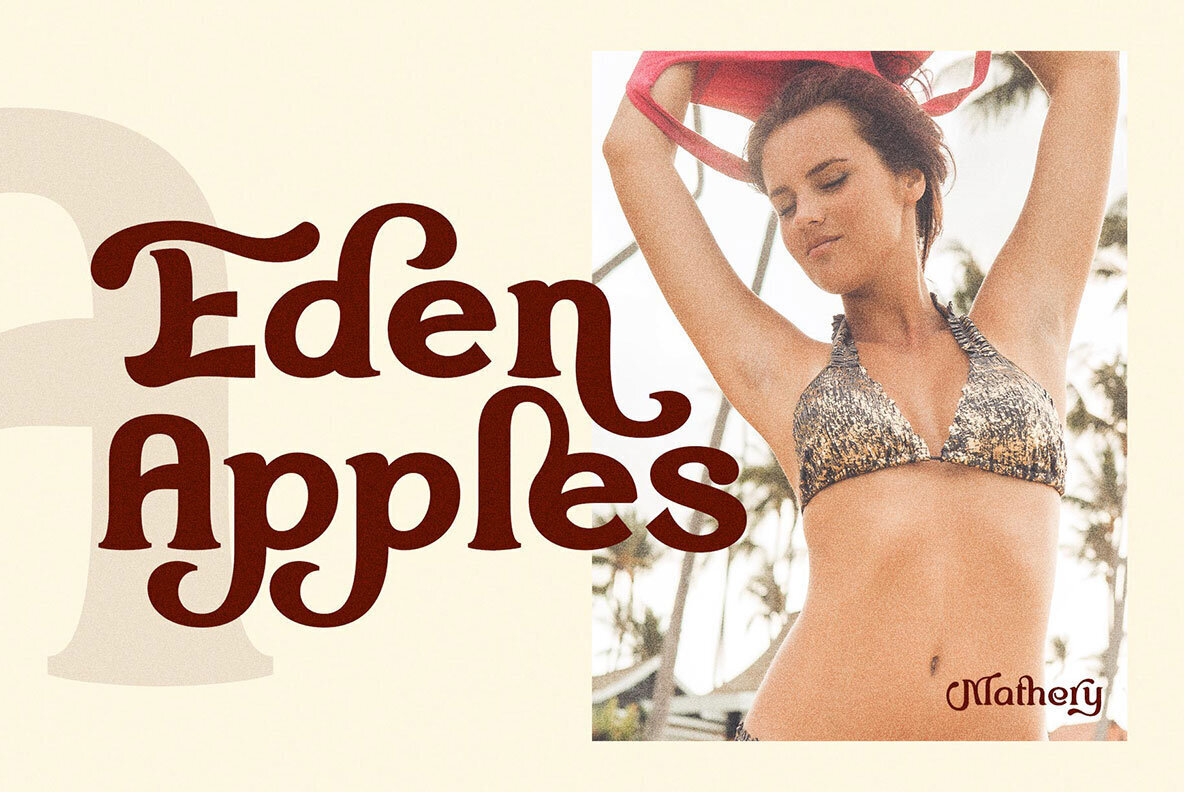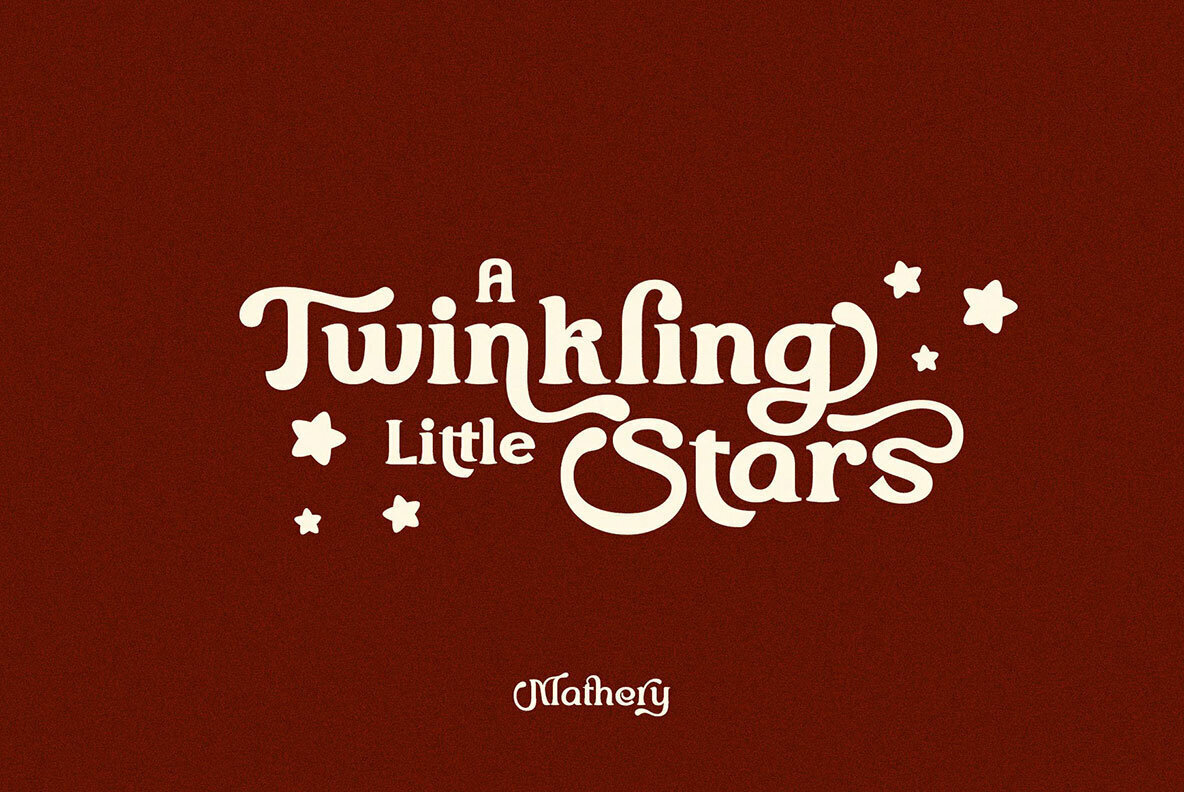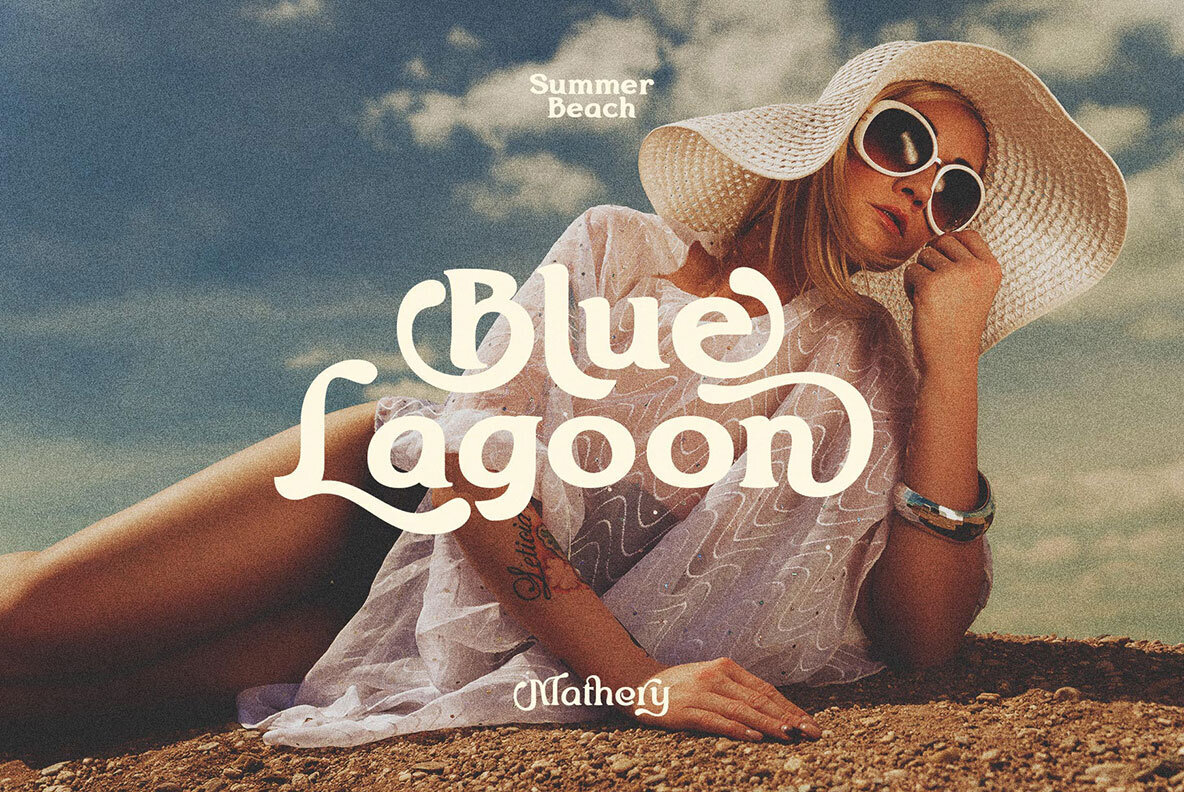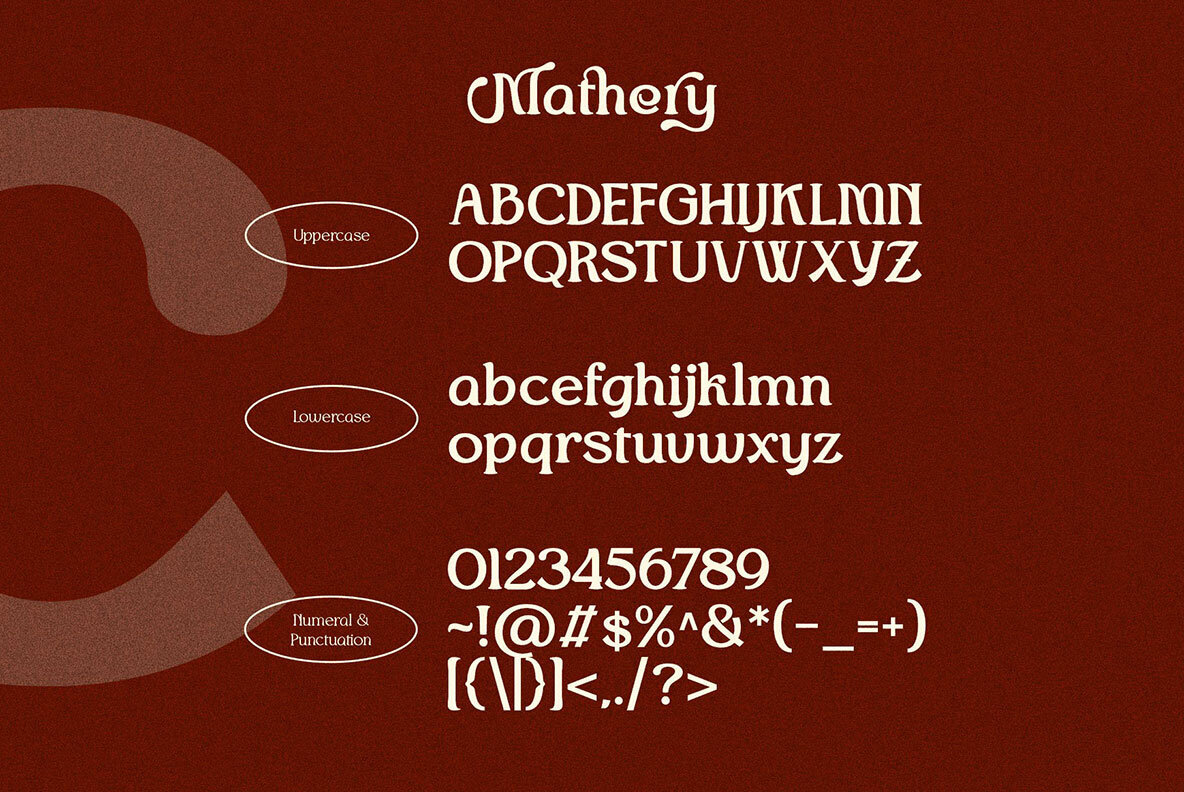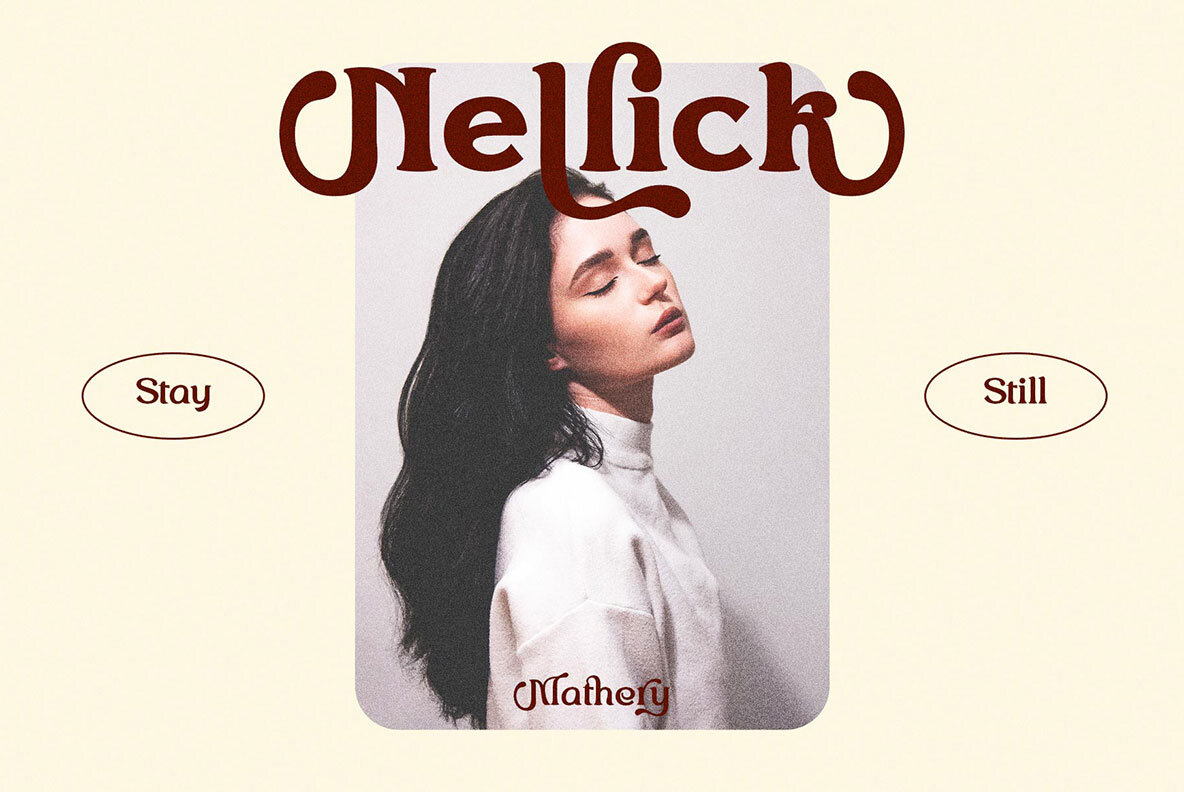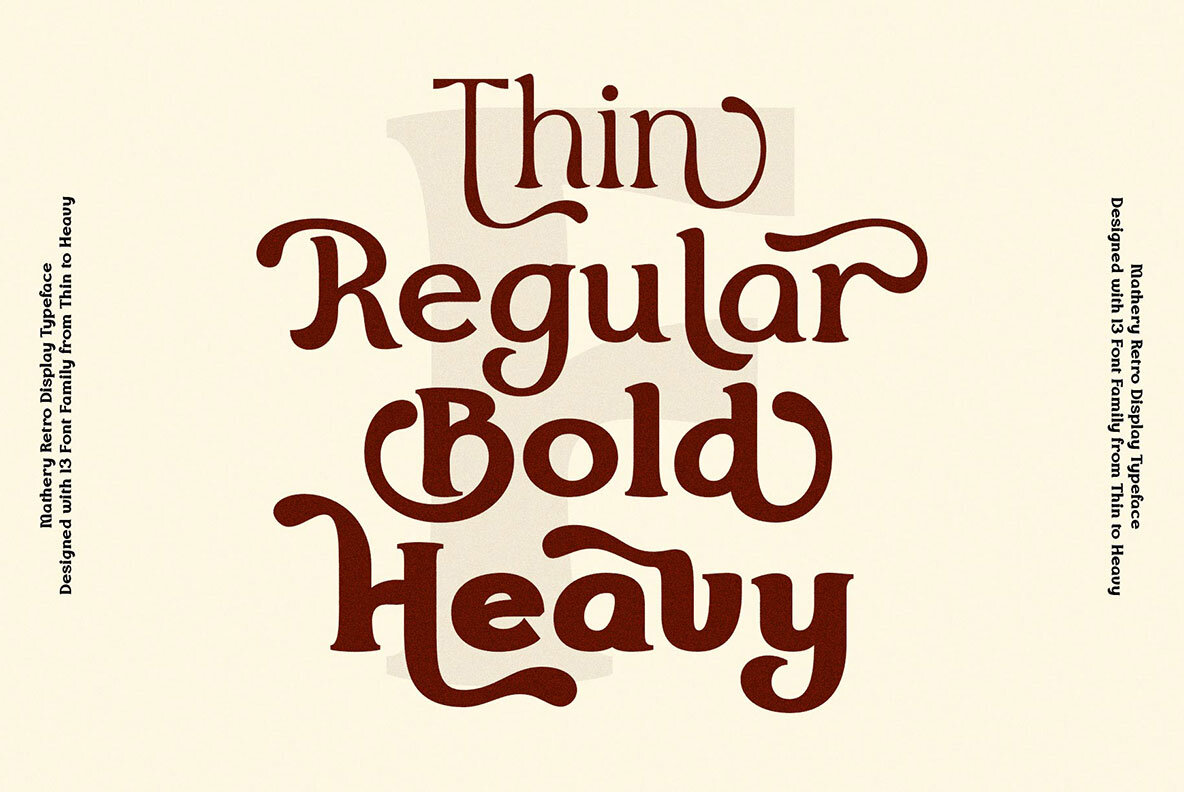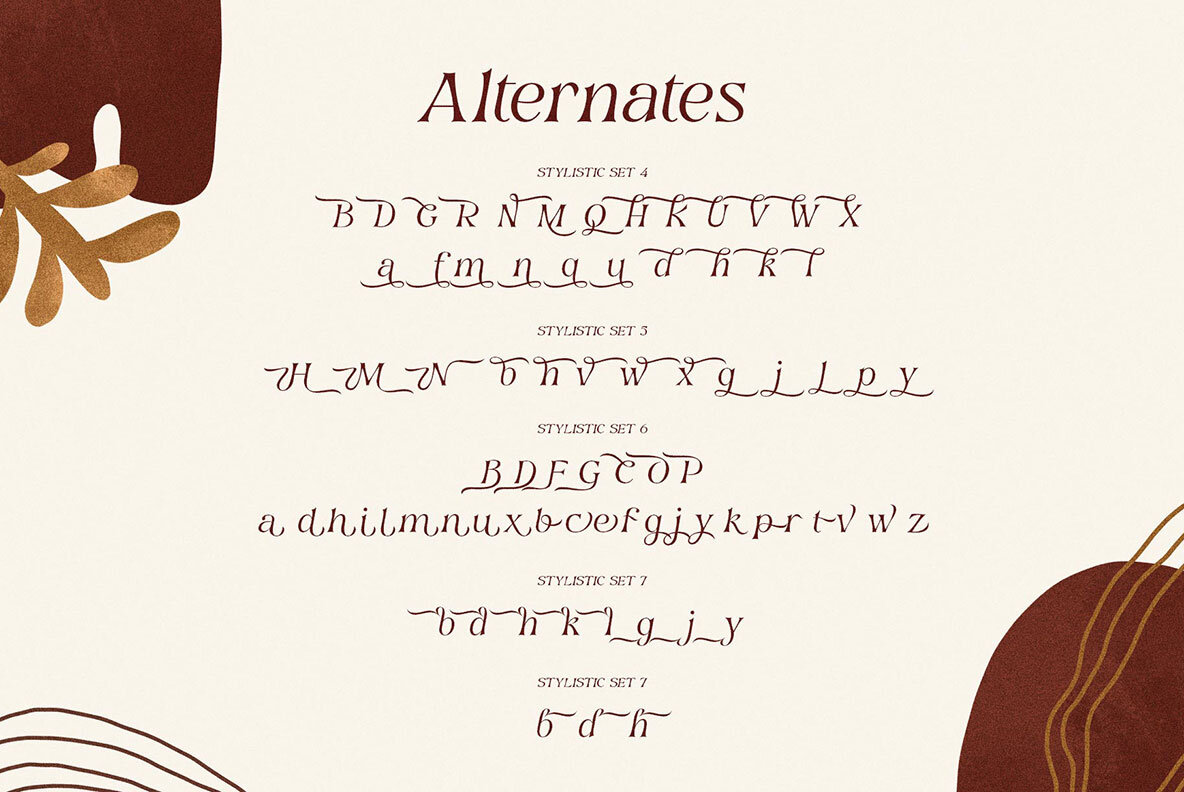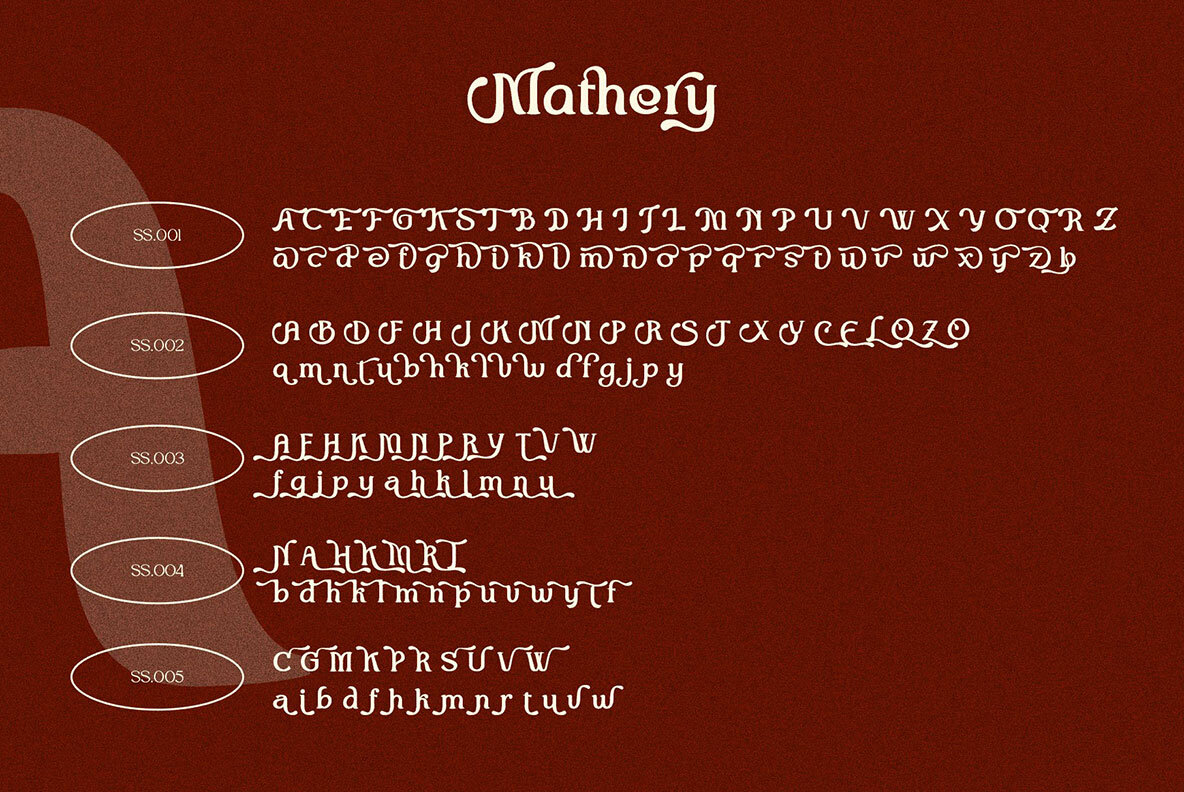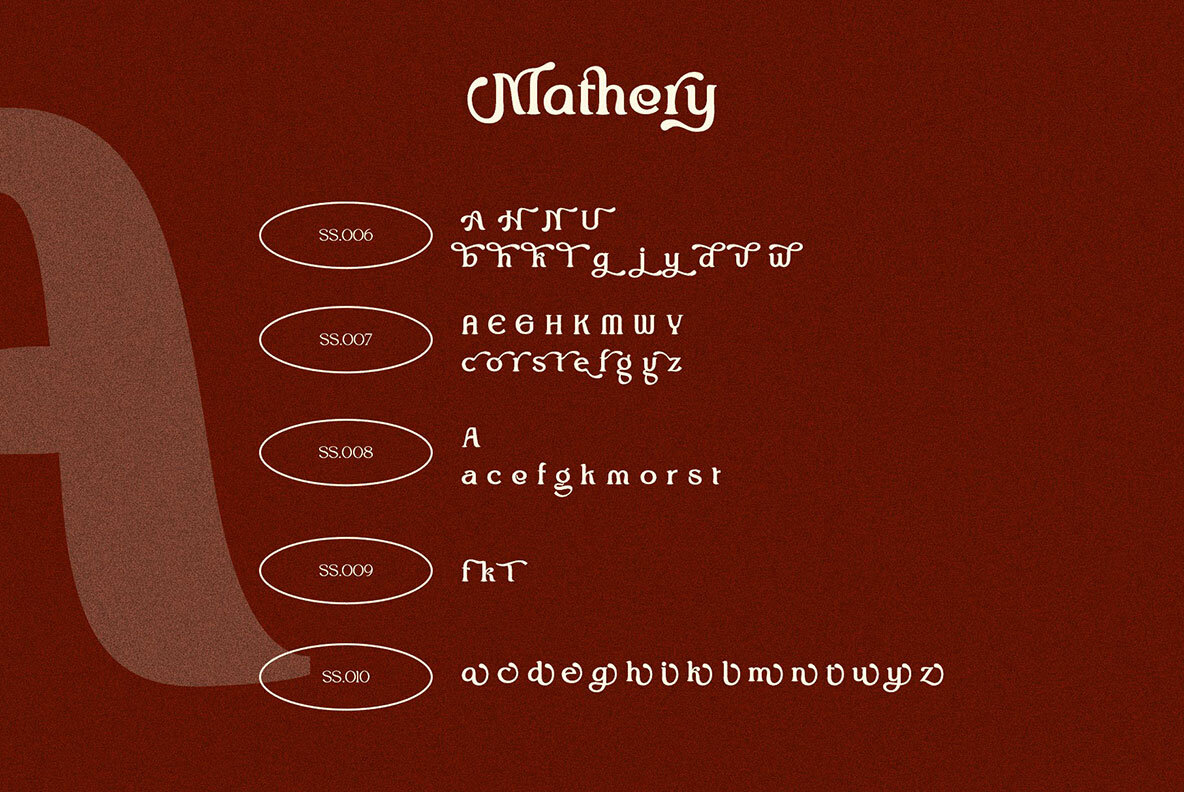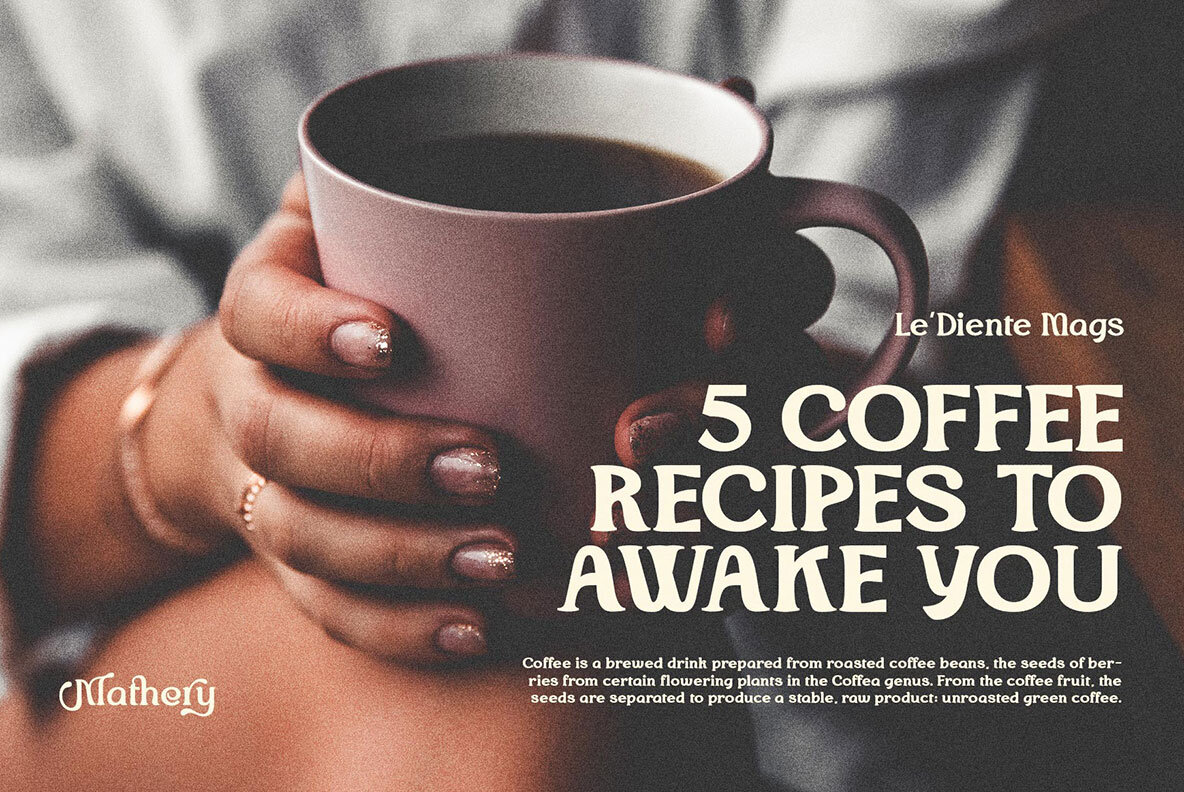
Mathery Font
Mathery font is designed with a modern concept that is simple and dynamic. The serif style adopted by the Mathery font is a 2022 style font, has a unique swash alternative, has a large selection of ligatures. In addition.
Serif typefaces such as “Mathery typeface” are very easy to apply to any design, especially those with an elegant and playful concept, besides that this font is very easy to use both in design and non-design programs because everything changes and glyphs are supported by Unicode (PUA).
The Mathery typeface contains 806 glyphs with many unique and interesting alternative options. Plus, there's a cool serif font family for header and description text from thin to heavy. In the poster preview all the letters are in the Mathery typeface.